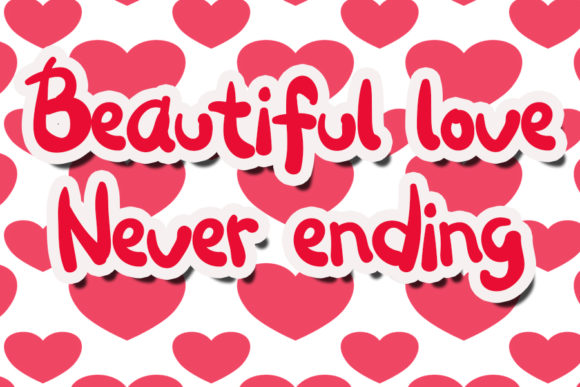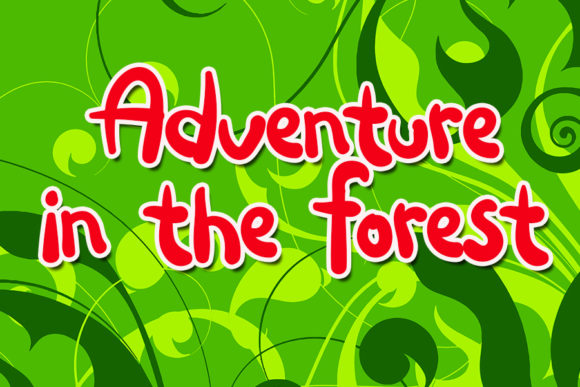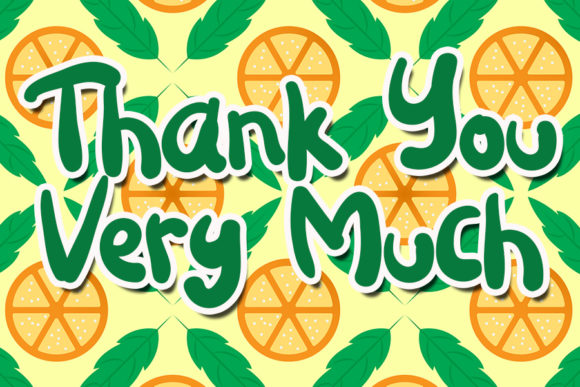
Introduction to Gissela Font
Gissela is a cute and friendly display font.
Thick lettered yet cursive, this font will be the ideal choice for a wide range of designs .
Key Features of Gissela Font